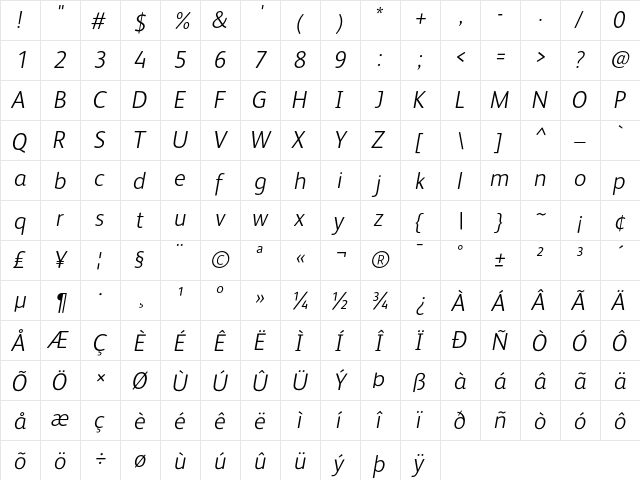
FSAlbert Light Italic Font Preview
| Style | Light Italic |
Design Context for FSAlbert Typeface
FSAlbert takes a measured approach to typography — its balanced proportions and neutral character make it a reliable workhorse for both digital and print work. The dynamic lean of this cut emphasises speed and emphasis in any layout. The delicate stroke weight brings airiness and refinement to layouts.
Pro Tip: Try FSAlbert for annotation and caption copy alongside an upright companion — the contrast in angle creates a dynamic but ordered typographic system.